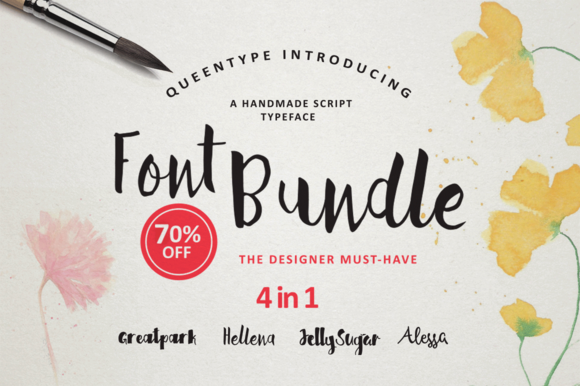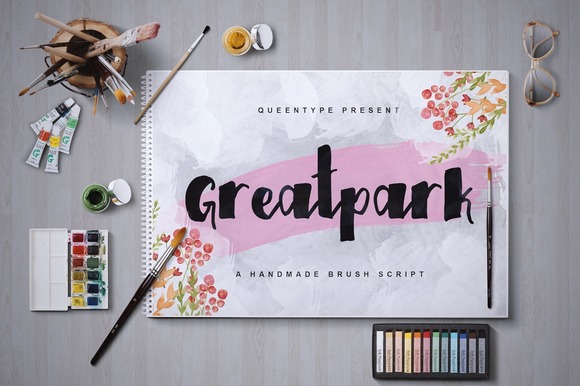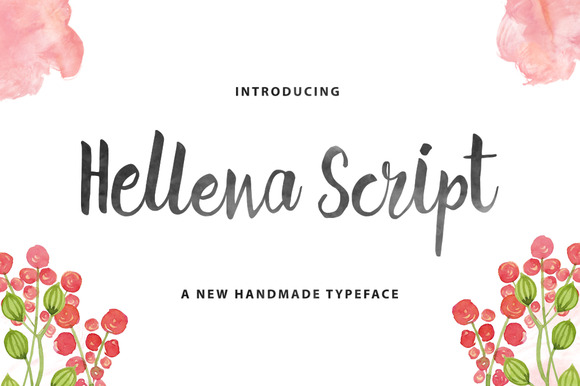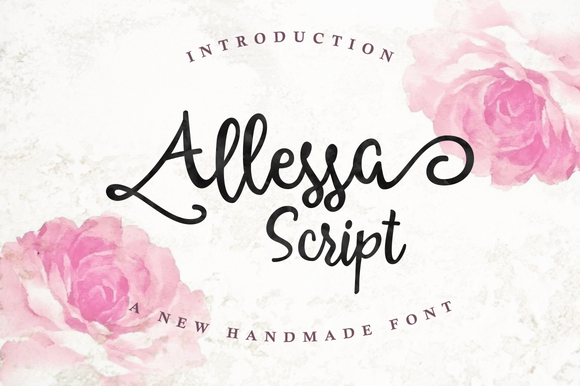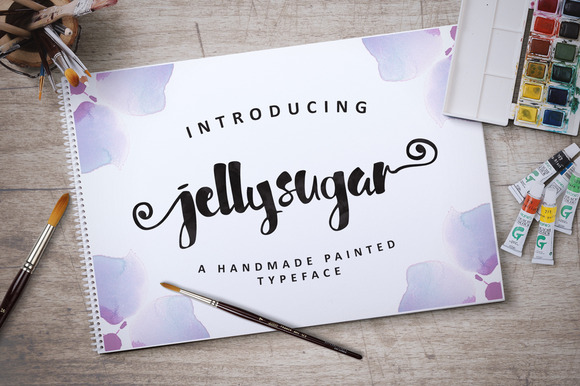
Handmade Font Bundle
If you love handmade lettering, this Font Bundle is for you! Get $63 worth of great brush handmade typeface fonts only $19, beautiful handmade brush script give the natural looks. Stylistic alternates, Ornament, Swash and more.You can access all those alternate characters by using OpenType savvy programs such as Adobe Illustrator and Adobe InDesign.
Great for Apparel Brand, any greeting cards, book cover, Painting design style, or any design that needs natural and personal touch. Mix and match the alternate characters to add an attractive message to your design.